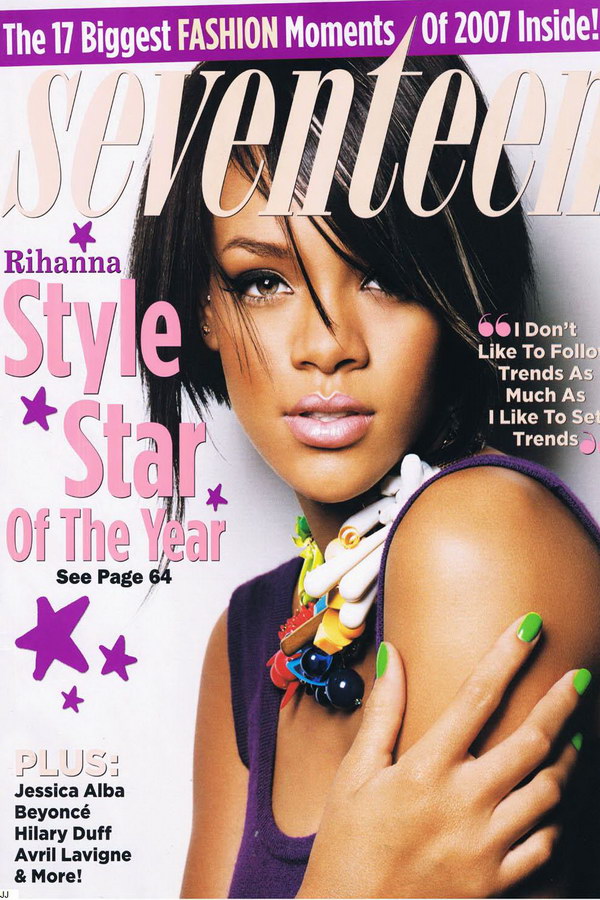
Seventeen Font
BookSeventeen is an American publication that primarily targets teenage girls and covers topics such as fashion, beauty, relationships, and lifestyle. It was first published in 1944 and has since become a popular source of entertainment and advice for young women.
The magazine's nameplate is most likely written in Arsis Italic, a modern serif font created by Gerry Powell in 1937. This commercial typeface is available for purchase here.